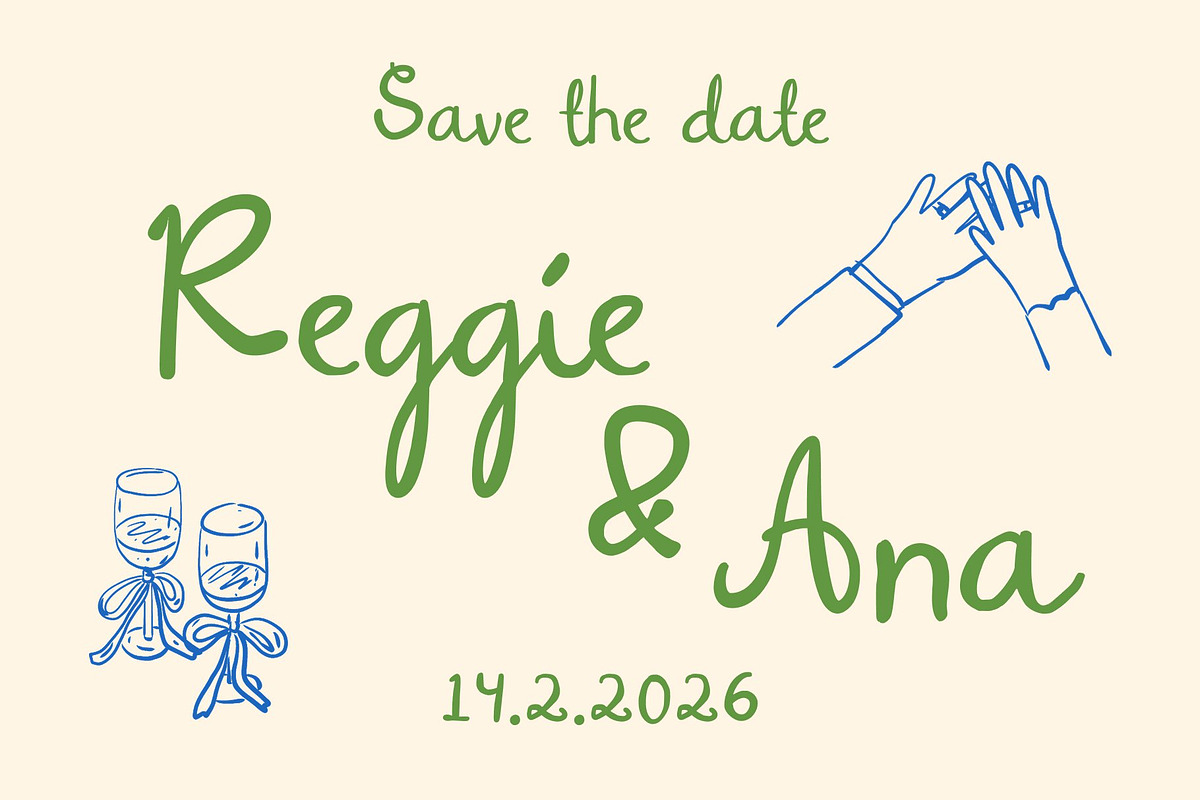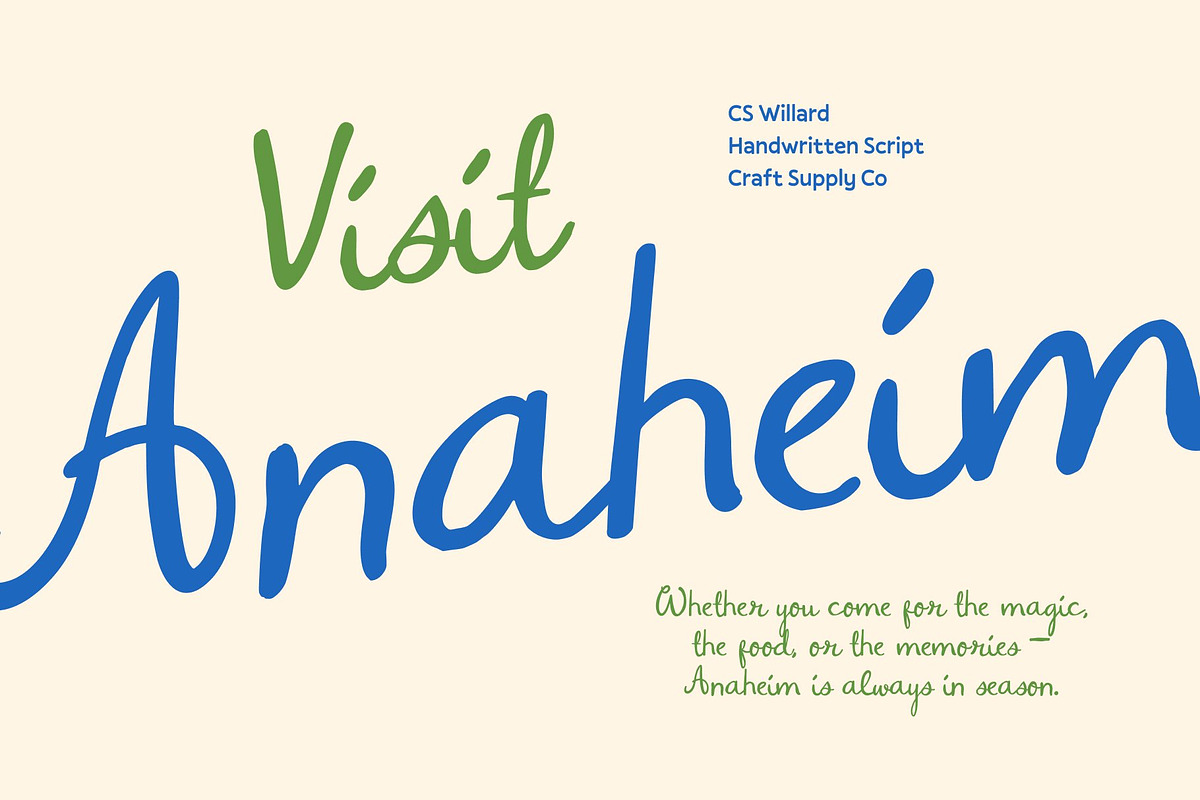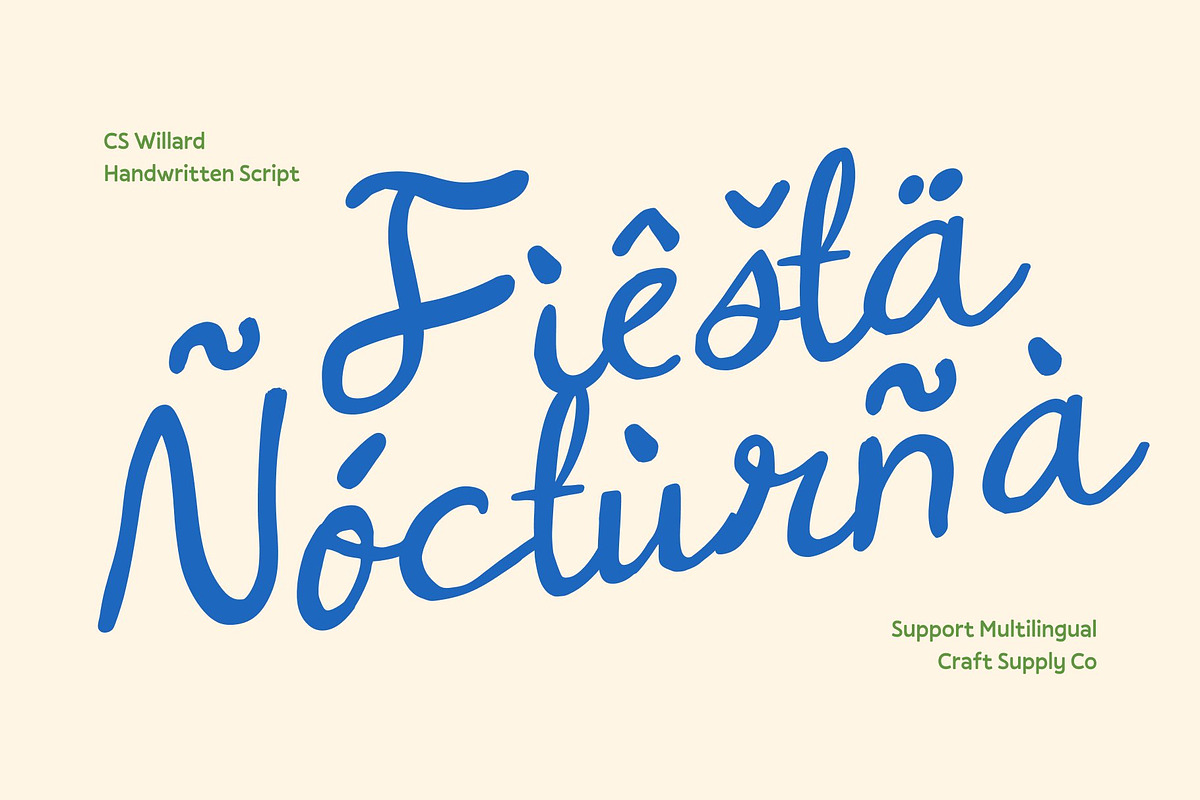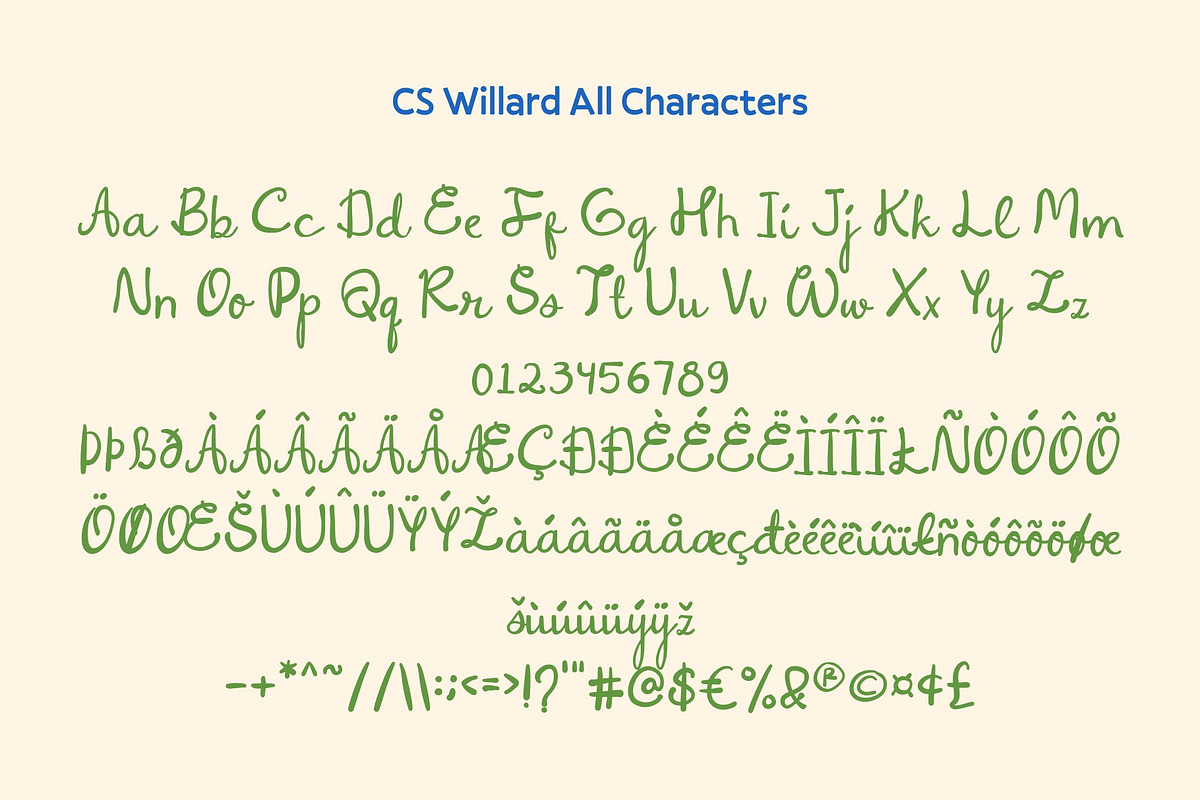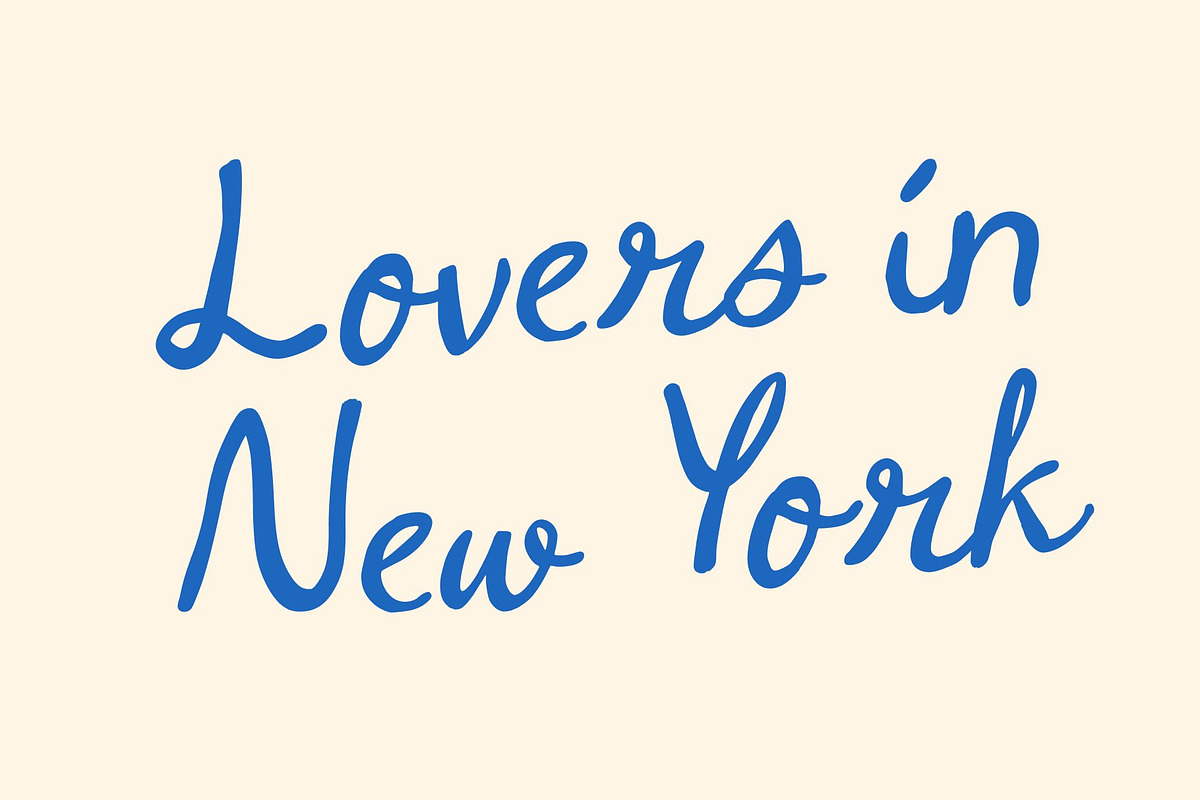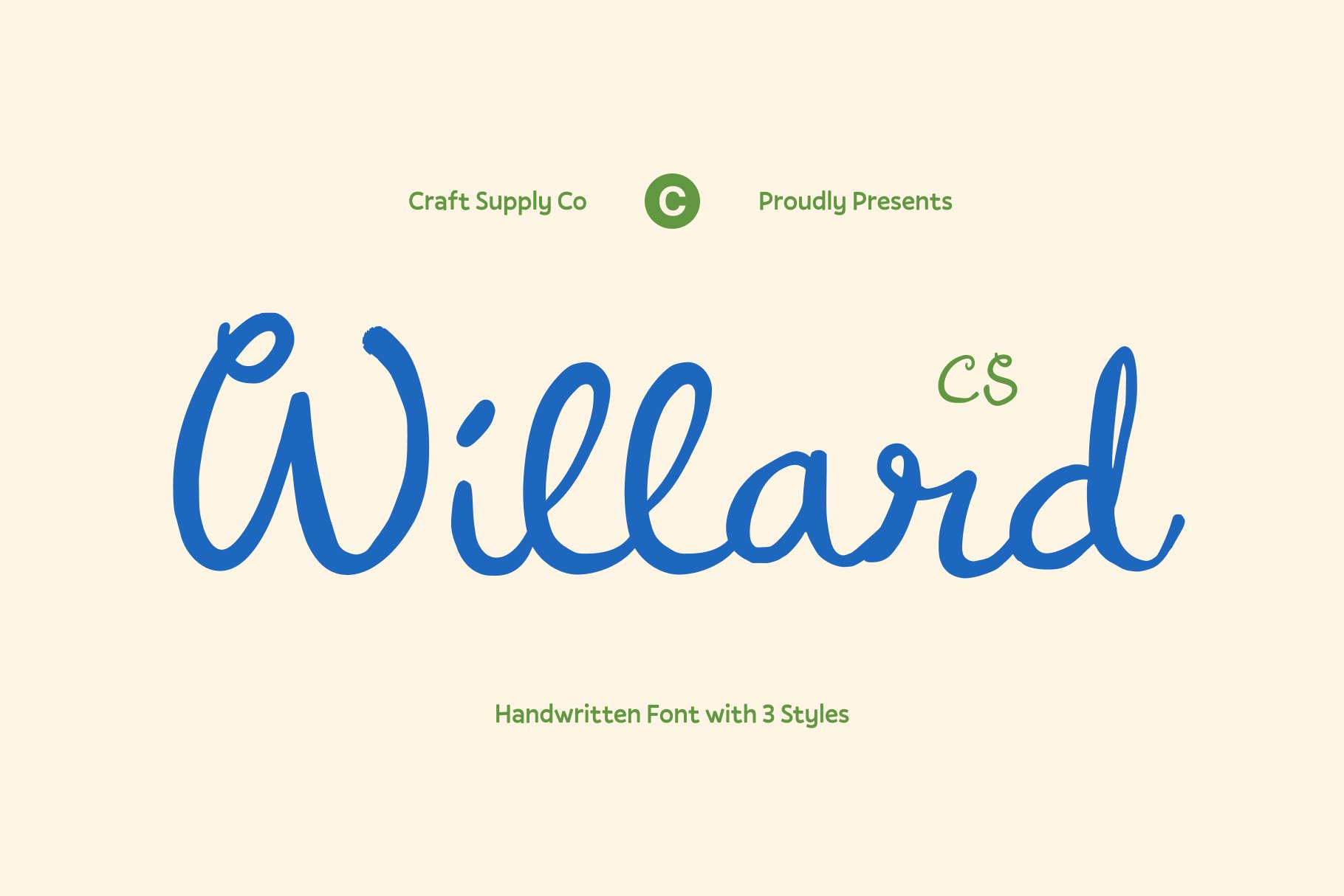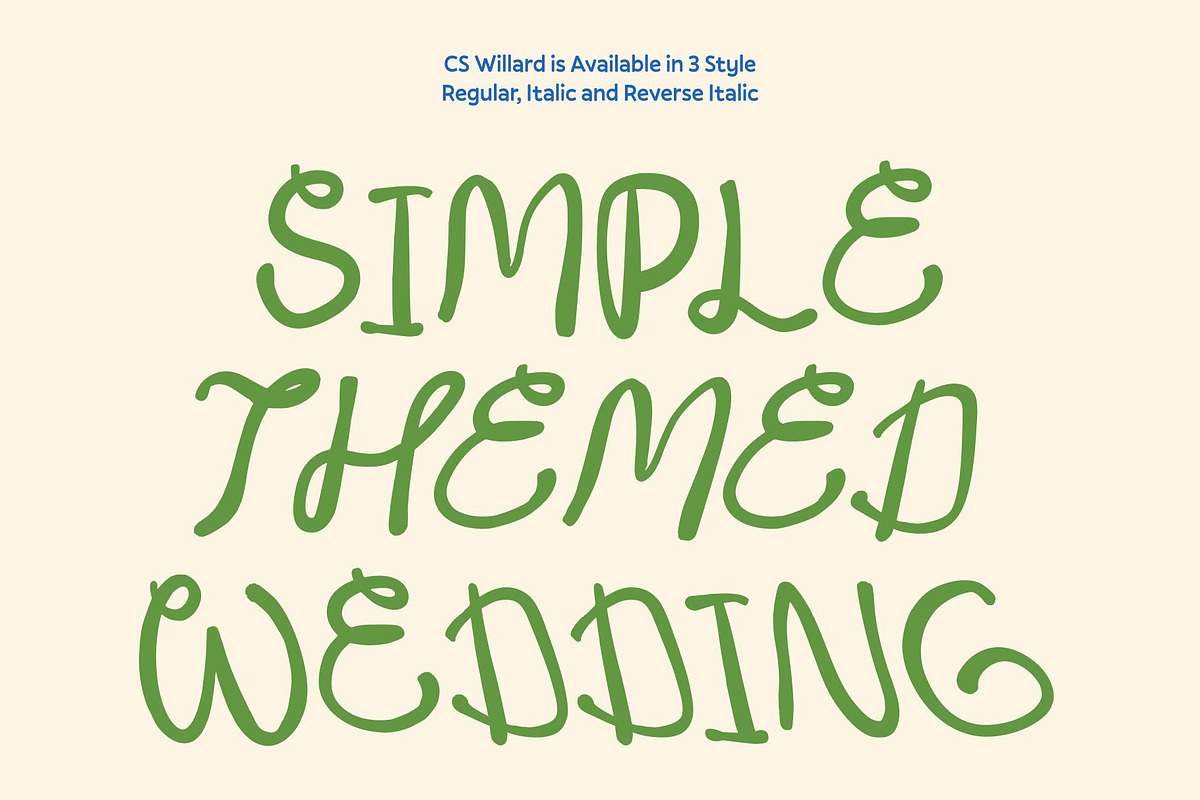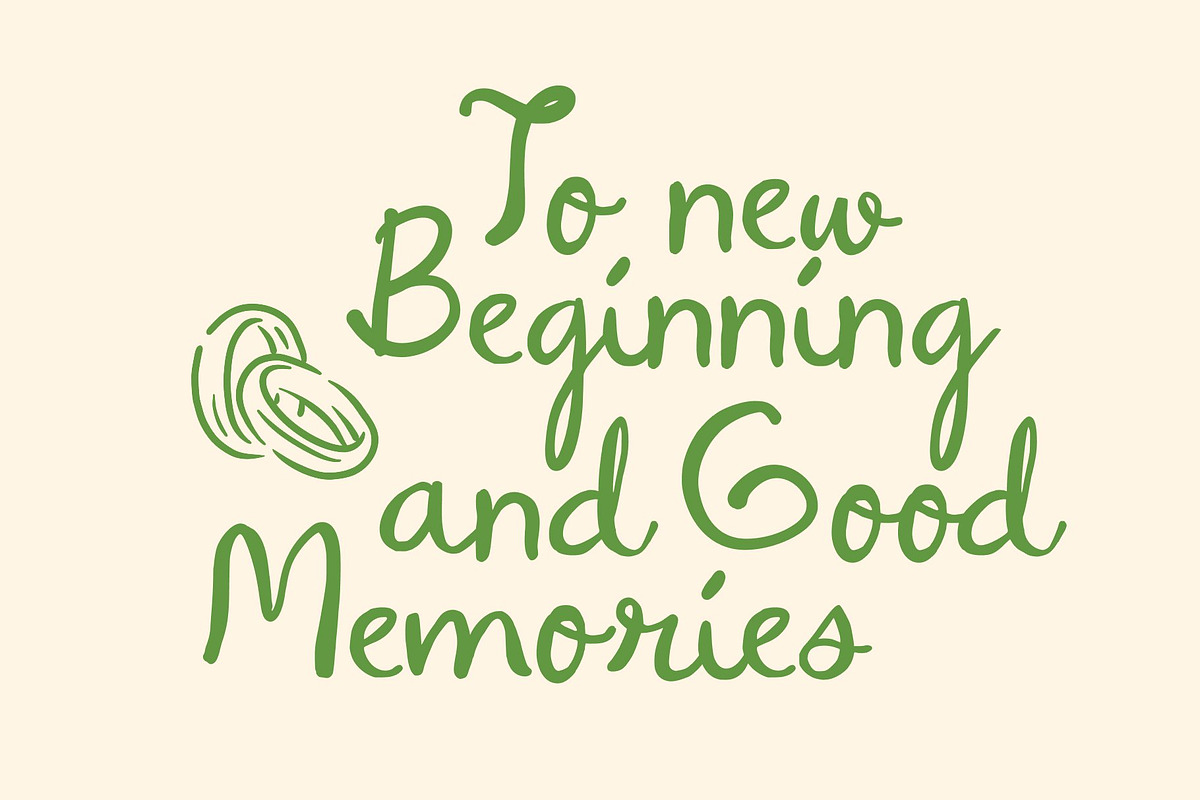
CS Willard – Whimsy Script Font
CS Willard – Whimsy Script Font with Creative Artistic
Delicate Script with Charming Personality This is a whimsy script font crafted to bring delicate beauty and expressive charm to any design. With its fluid strokes and playful curves, this font radiates a soft, artistic personality that instantly stands out. Every letter flows gracefully, creating a handwritten touch that feels warm, imaginative, and effortlessly stylish.
Elegant Strokes for Distinctive Style Experience the refined elegance of this font’s smooth, sweeping strokes. Each character showcases thoughtful craftsmanship, giving your designs both clarity and artistic flair. The unique letterforms balance sophistication and spontaneity, making this script ideal for capturing attention while maintaining a sense of gentle refinement. Its whimsical style adds depth and charm to even the simplest messages.
Perfect for Branding and Personal Expression This font shines in branding projects that seek personality, softness, and creative luxury. Its expressive curves bring a memorable identity to logos, packaging, and editorial designs. Whether you’re crafting a boutique brand or designing visuals for lifestyle products.
Ideal for Invitations and Fashion Graphics From wedding invitations to fashion look books, this font delivers a refined yet playful visual experience. Its stylish flair enhances invitations, greeting cards, social media posts, and fashion-related graphics with effortless grace. Use this font to infuse your designs with creativity, romance, and timeless beauty ensuring every piece feels personal, artistic, and beautifully crafted.
- CS Willard Regular
- CS Willard Italic
- CS Willard Reverse Italic